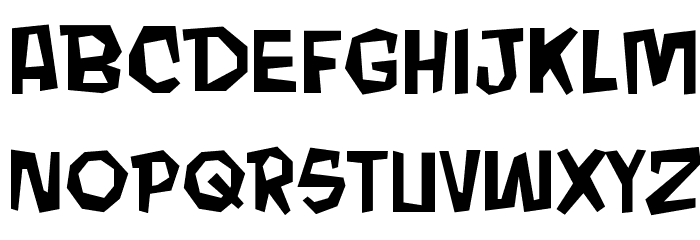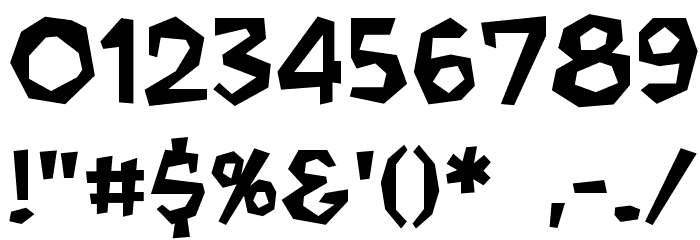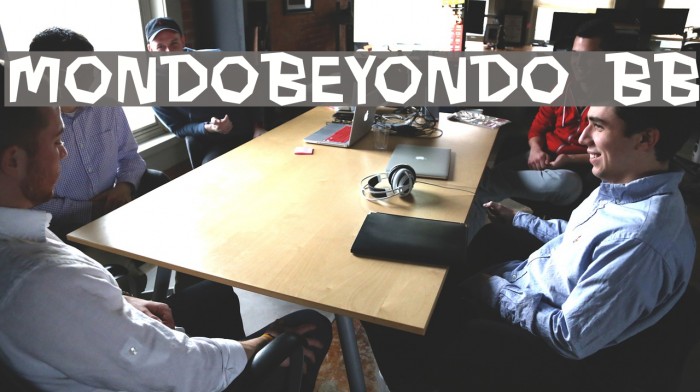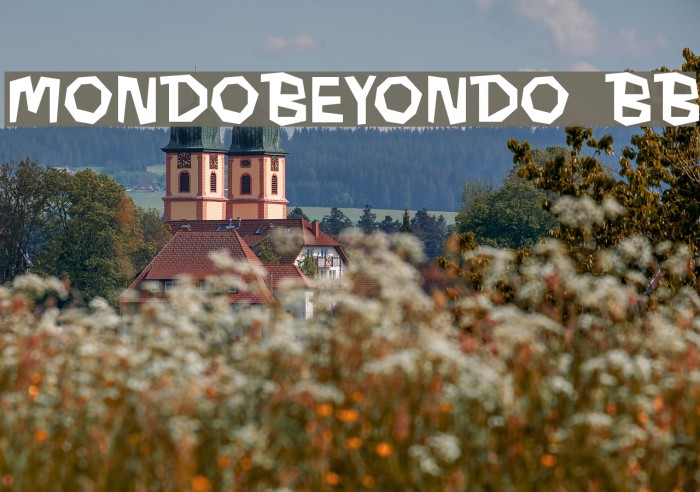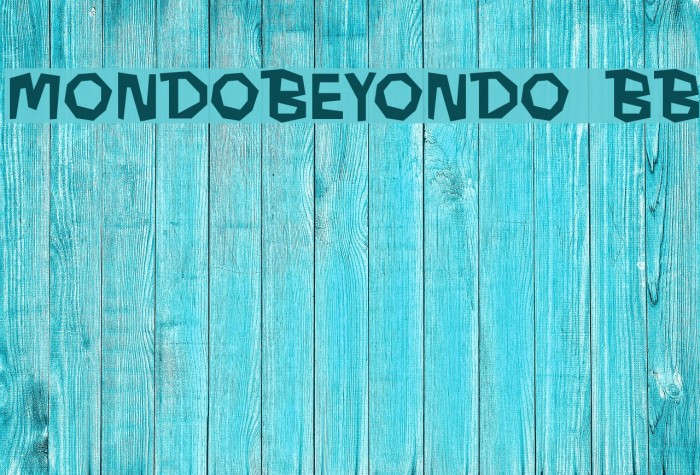
MondoBeyondo BB Font
This font features a bold, angular design with a distinctive geometric style. The characters are crafted with sharp edges and irregular shapes, giving it a dynamic and edgy appearance. The uppercase letters are particularly striking, with a strong presence that commands attention. The numbers and special characters maintain the same bold and angular aesthetic, ensuring consistency across all elements. This font is ideal for projects that require a bold statement or a modern, unconventional look.
A bold, angular font with a geometric and edgy style.
- Proposed Projects: Ideal for posters, album covers, video game titles, and branding that requires a bold and modern touch.